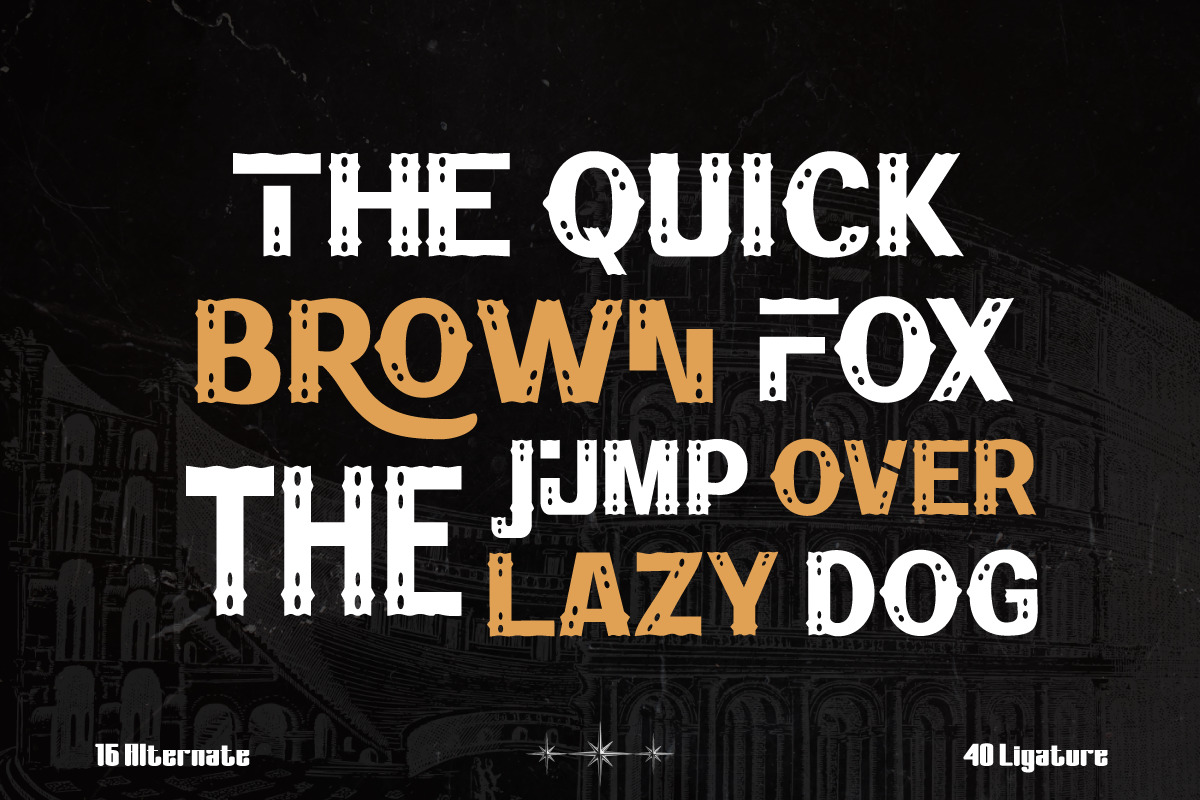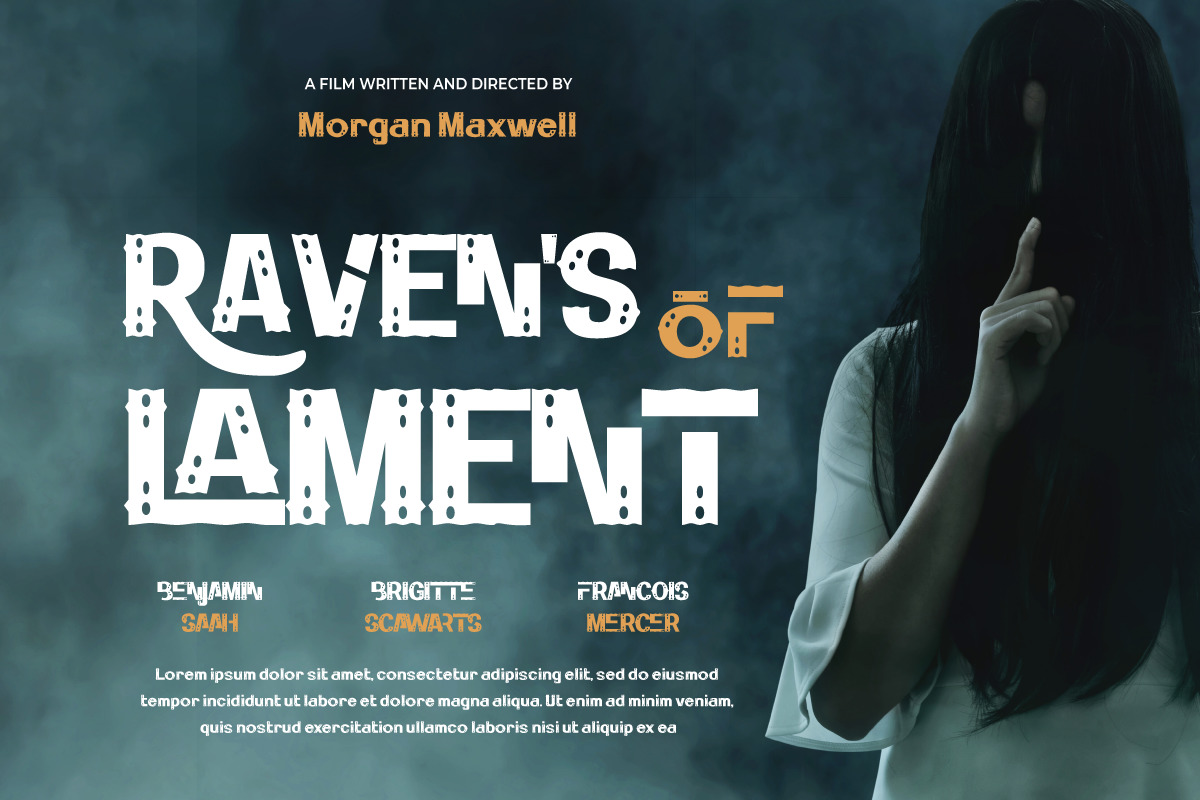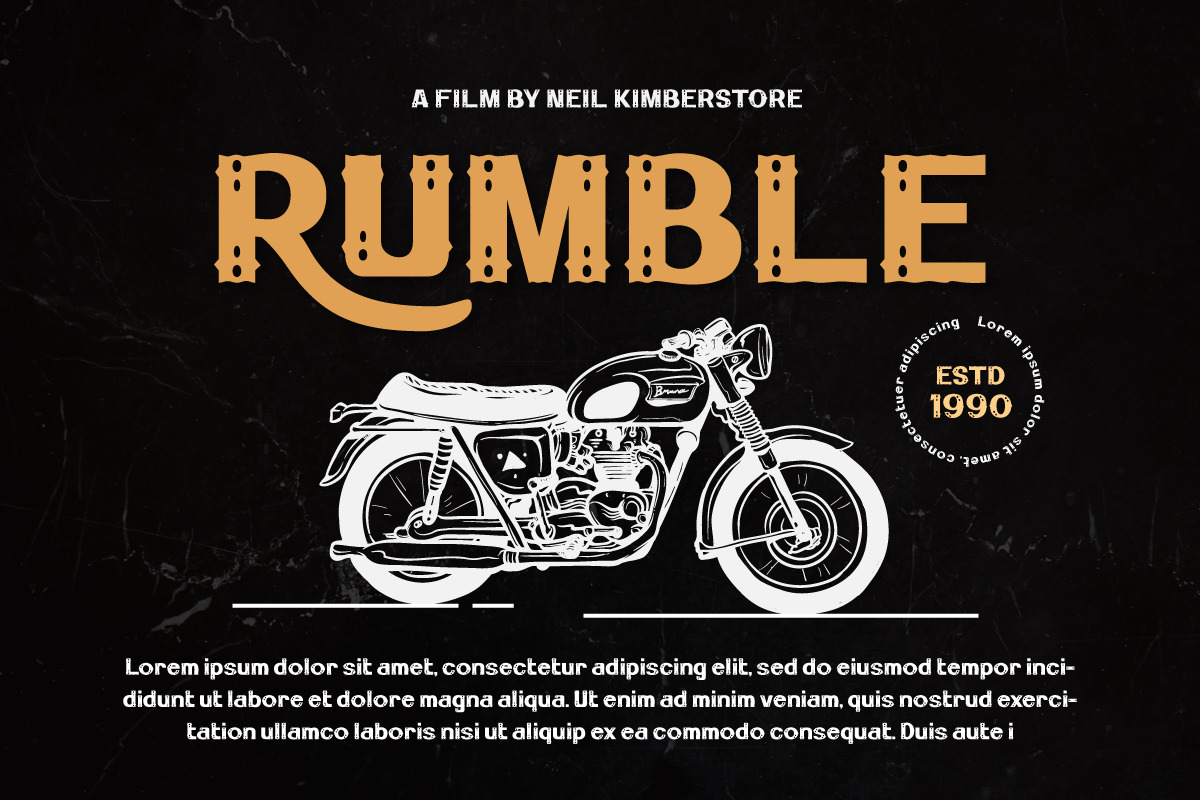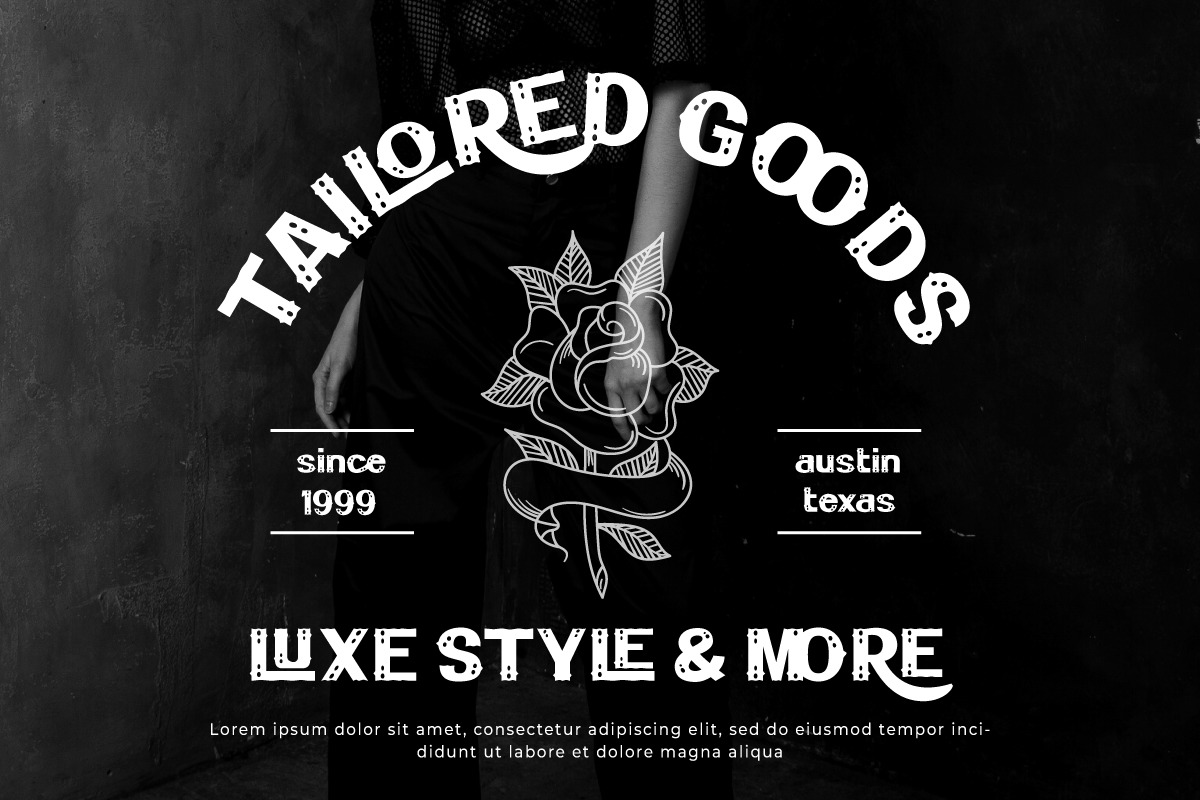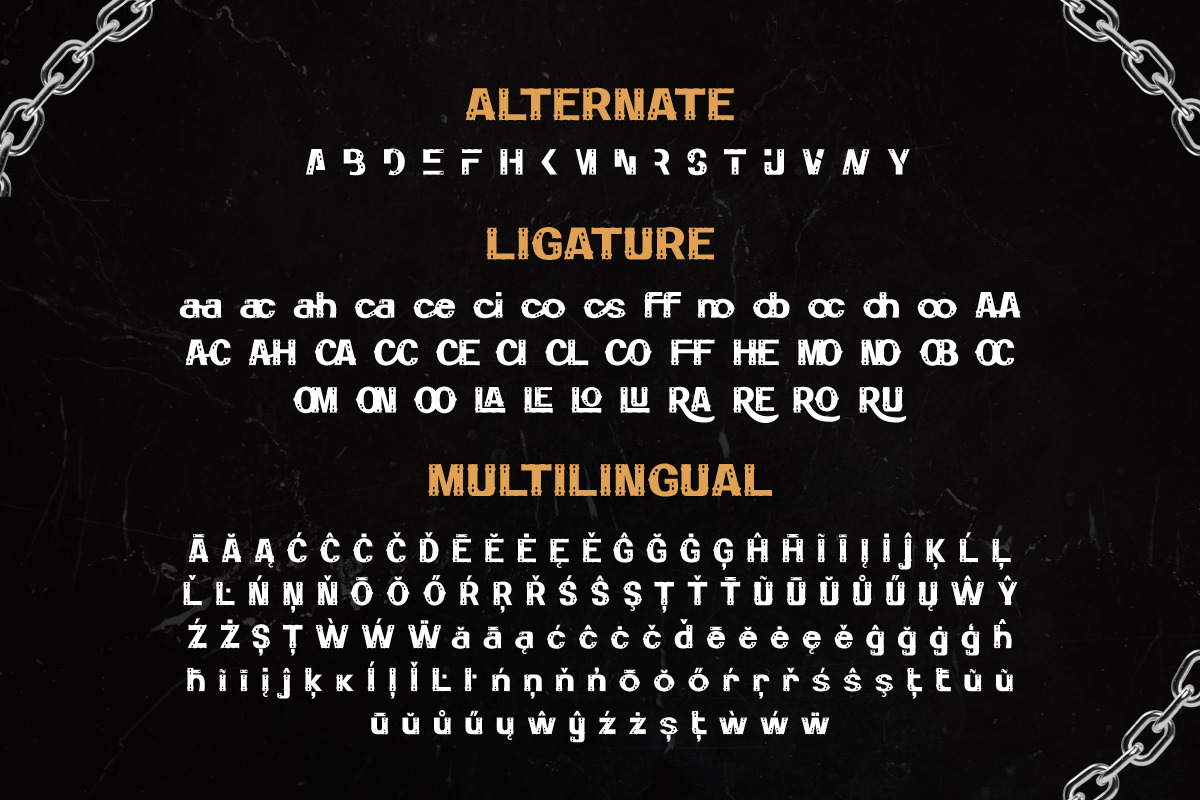
Mrecail - Retro Condensed Display Font
Introducing Mrecail Font, a stunning and captivating typeface that will instantly grab the attention of your audience. With its elegant and versatile design, Mrecail Font is the perfect choice for those seeking a unique and attention-grabbing typography solution.
Mrecail Font features beautifully crafted letterforms that exude sophistication and style. Its graceful curves and intricate details make it suitable for a wide range of design applications, including branding, invitations, packaging, and more. Whether you're creating a luxurious logo or designing a refined product label, Mrecail Font will leave a lasting impression on your potential customers.
With its versatility and visual appeal, Mrecail Font allows you to express your creativity and make a bold statement in your designs. It's the ideal choice for individuals and businesses looking to elevate their visual presence and stand out from the crowd.